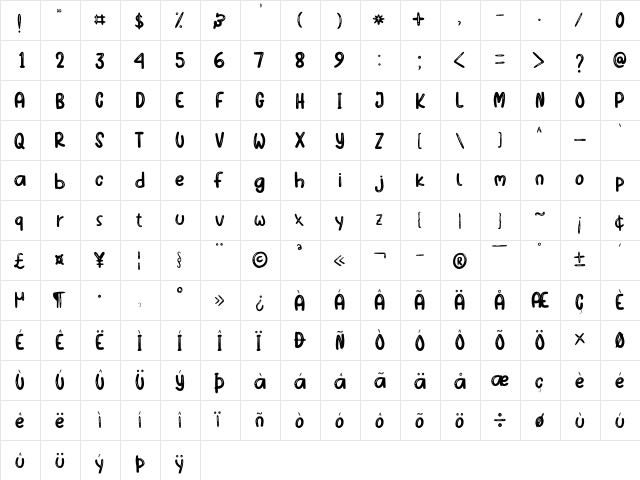
Fun Party Regular
| Designer | Fajar Wicaksono |
Design Context for Fun Party Typeface
Fun Party trades formality for fun, with bouncy, characterful letterforms that bring warmth and energy to any project.
Font Pairing: Pairs well with a rounded or humanist sans for body copy, maintaining the friendly tone without relying on Fun Party to carry extended reading.
Pro Tip: Avoid using Fun Party for long passages of text — it works best for headlines, labels, and short calls to action.